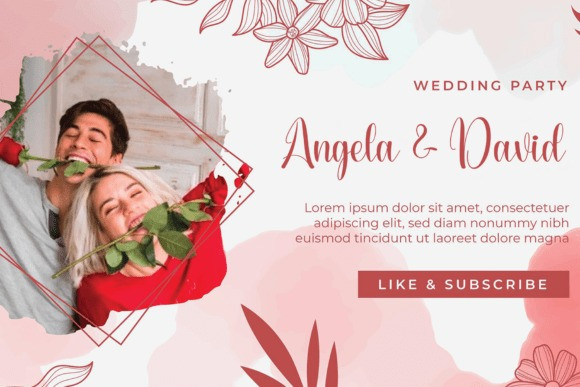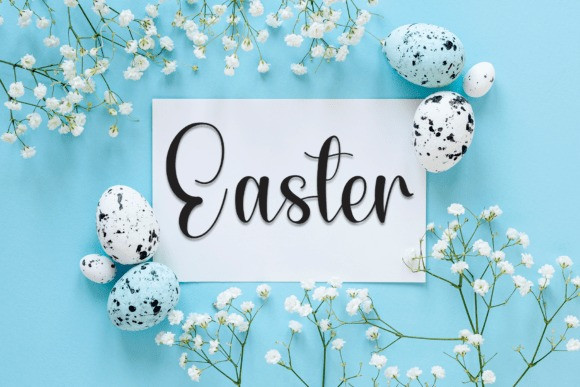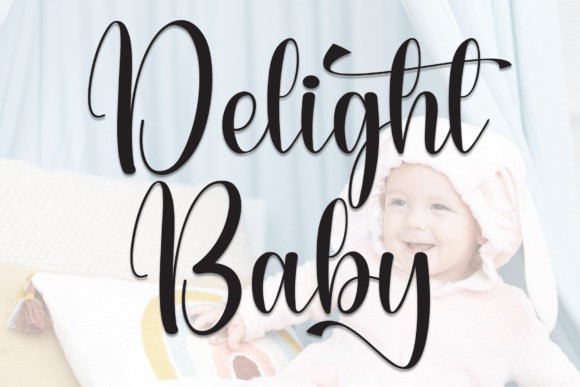
Delight Baby Handwriting Font
Delight Baby Handwriting Font is a stylish handwritten script font that blends modern elegance with a playful touch. Its fluid strokes and charming curves bring a personal feel to any design. Ideal for logos, packaging, and invitations, this typeface adds warmth, sophistication, and creativity to every project.